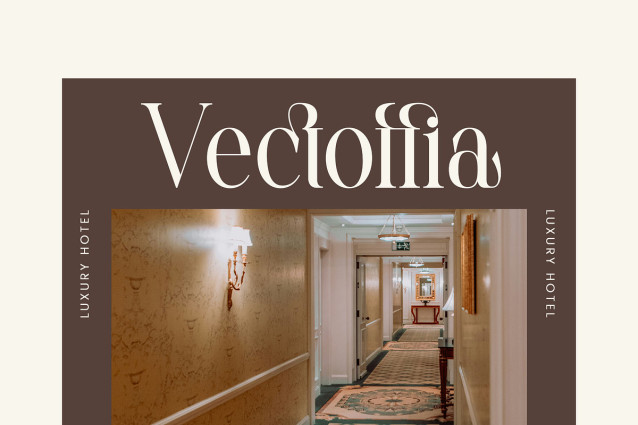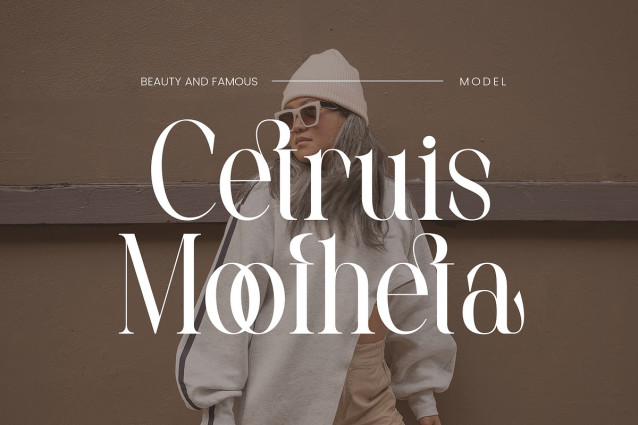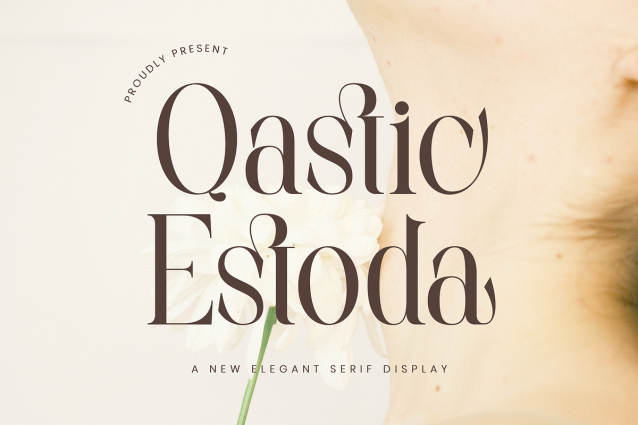
Qastic Estoda Font
Qastic Estoda Font inspired by the famous minimalist logo perfect for the purposes of designing templates, brochures, videos, advertising branding, logos and more.